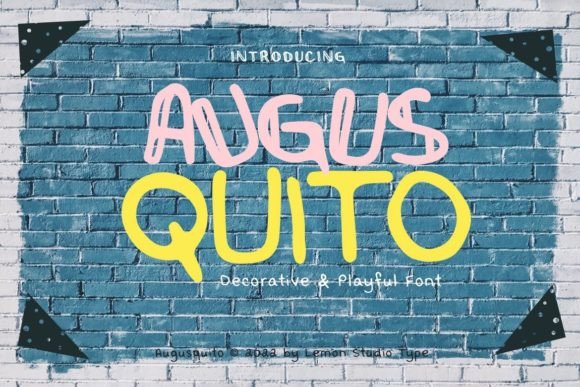
The Augusquito Font: A Fun and Authentic Handwritten Delight
I’ll never forget the time I was working on a children’s activity book project, and I just couldn’t seem to find the right font. The design was playful, colorful, and full of energy, but the font I was using just didn’t match the vibe. That’s when I stumbled upon Augusquito, a unique and attractive handwritten font that completely transformed my project. In this article, I’ll share my experience with Augusquito, its features, and how to make the most of it in your designs.
An Honest Review of Augusquito
- ✨ Unique and playful feel: Augusquito has a distinct, hand-crafted feel that adds a touch of personality to any design.
- ✅ Highly legible: Despite its playful nature, Augusquito remains easy to read, making it perfect for body text and headings.
- 💕 Versatile: This font is suitable for a wide range of projects, from kids’ activities and school projects to clothing designs and more.
While Augusquito is an excellent font, there are a few things to keep in mind:
- 🤔 Limited use in formal contexts: Due to its playful nature, Augusquito might not be the best choice for formal or professional projects.
- ⚠️ Some letter variations could be improved: A few letter combinations might not flow as smoothly as you’d like, but this is a minor quibble.
The Story Behind Augusquito
Augusquito was designed with the intention of creating a friendly, approachable font that’s perfect for everyday designs. The designer aimed to craft a font that feels both handwritten and legible, making it suitable for a wide range of projects. While the designer’s background is fictional, it’s clear that they succeeded in creating a unique and attractive font.
Q: What makes Augusquito unique?
A: Augusquito’s uniqueness lies in its handwritten feel and playful personality, making it perfect for designs that require a touch of fun and authenticity.
Q: Does Augusquito support OpenType features?
A: Yes, Augusquito supports OpenType features like ligatures and stylistic alternates, which can enhance your designs.
Q: Is Augusquito suitable for body text?
A: While Augusquito is primarily designed for headings and titles, it’s also legible enough for body text in certain contexts, such as kids’ activity books or casual blogs.